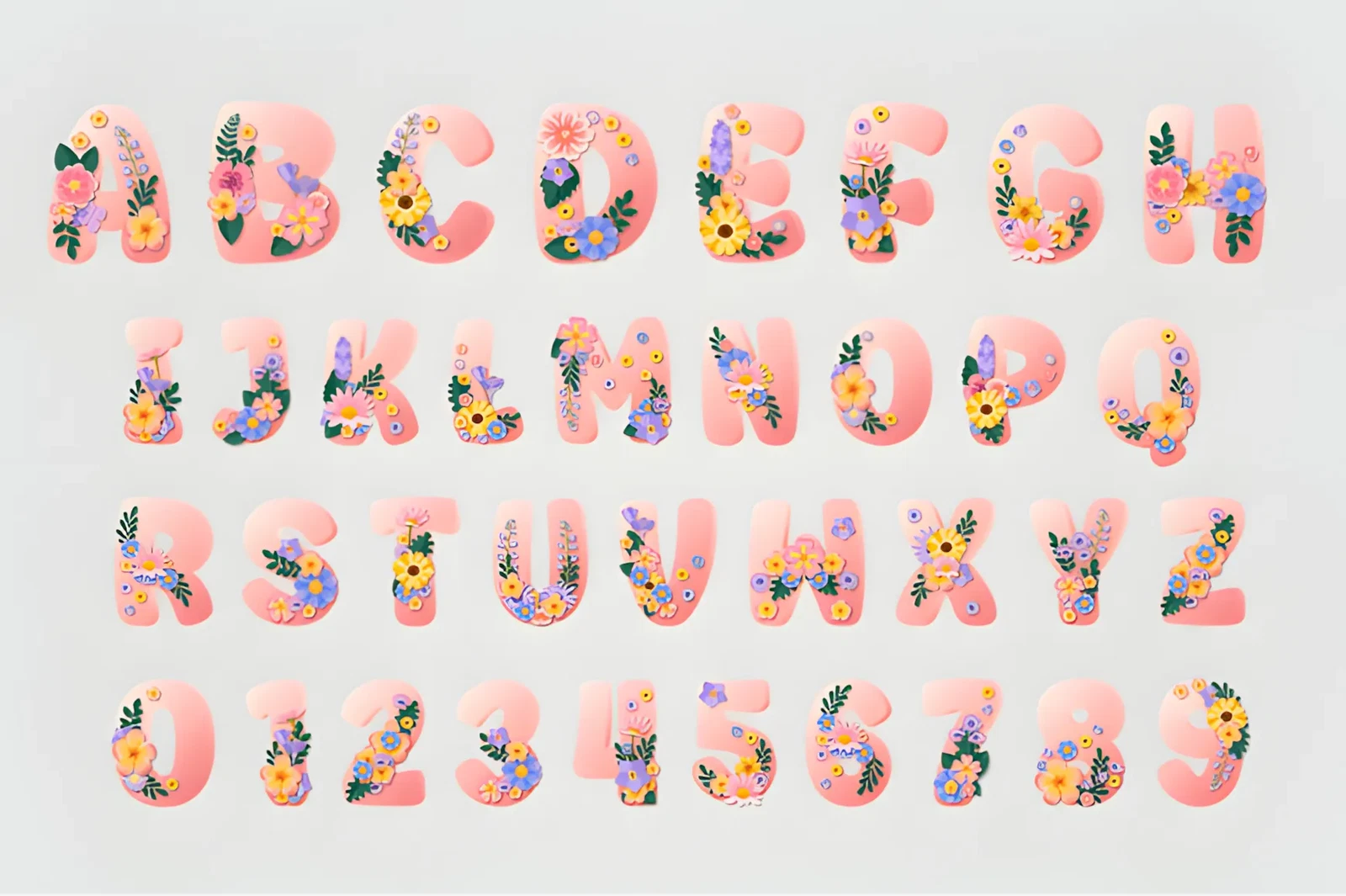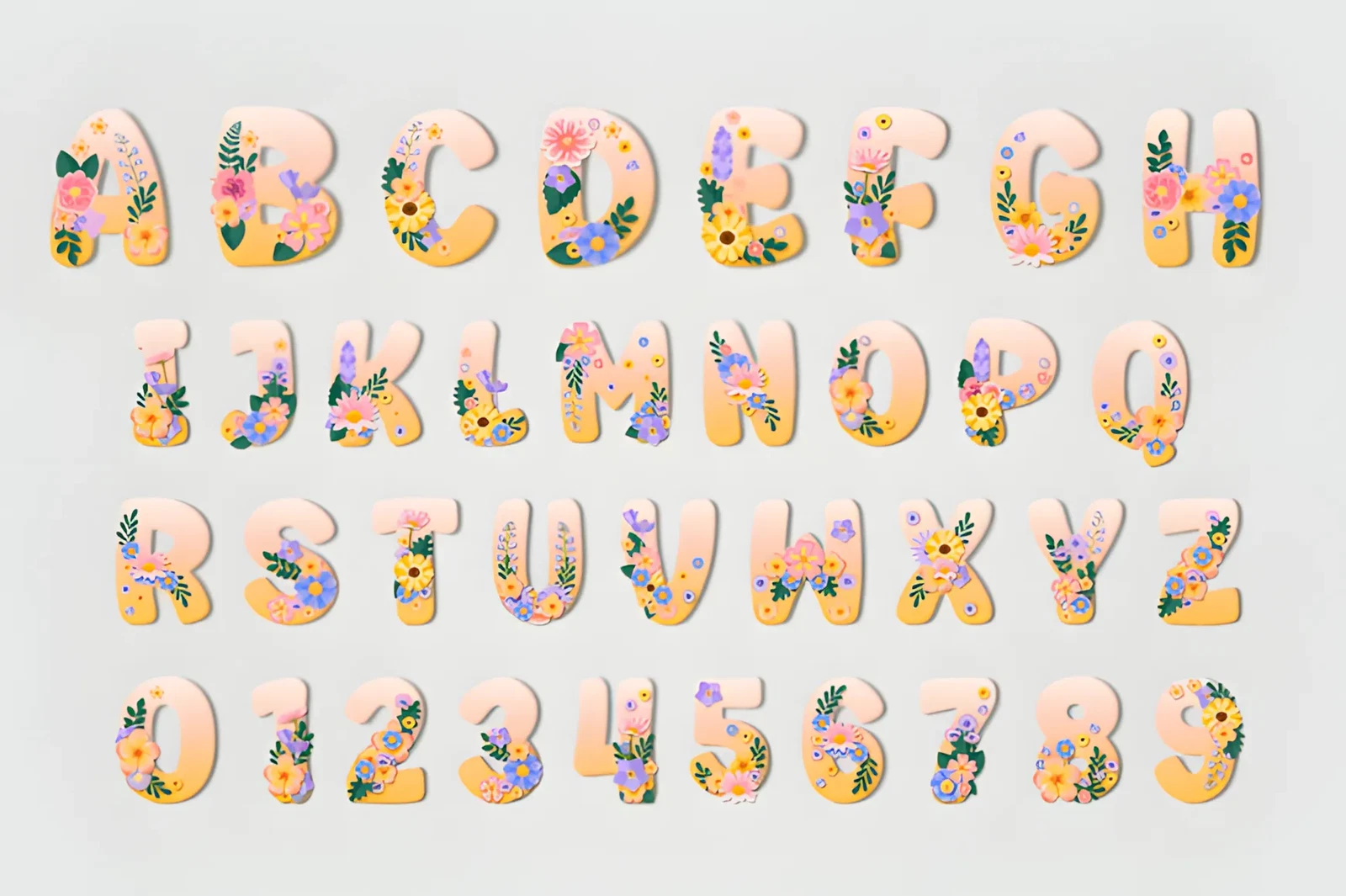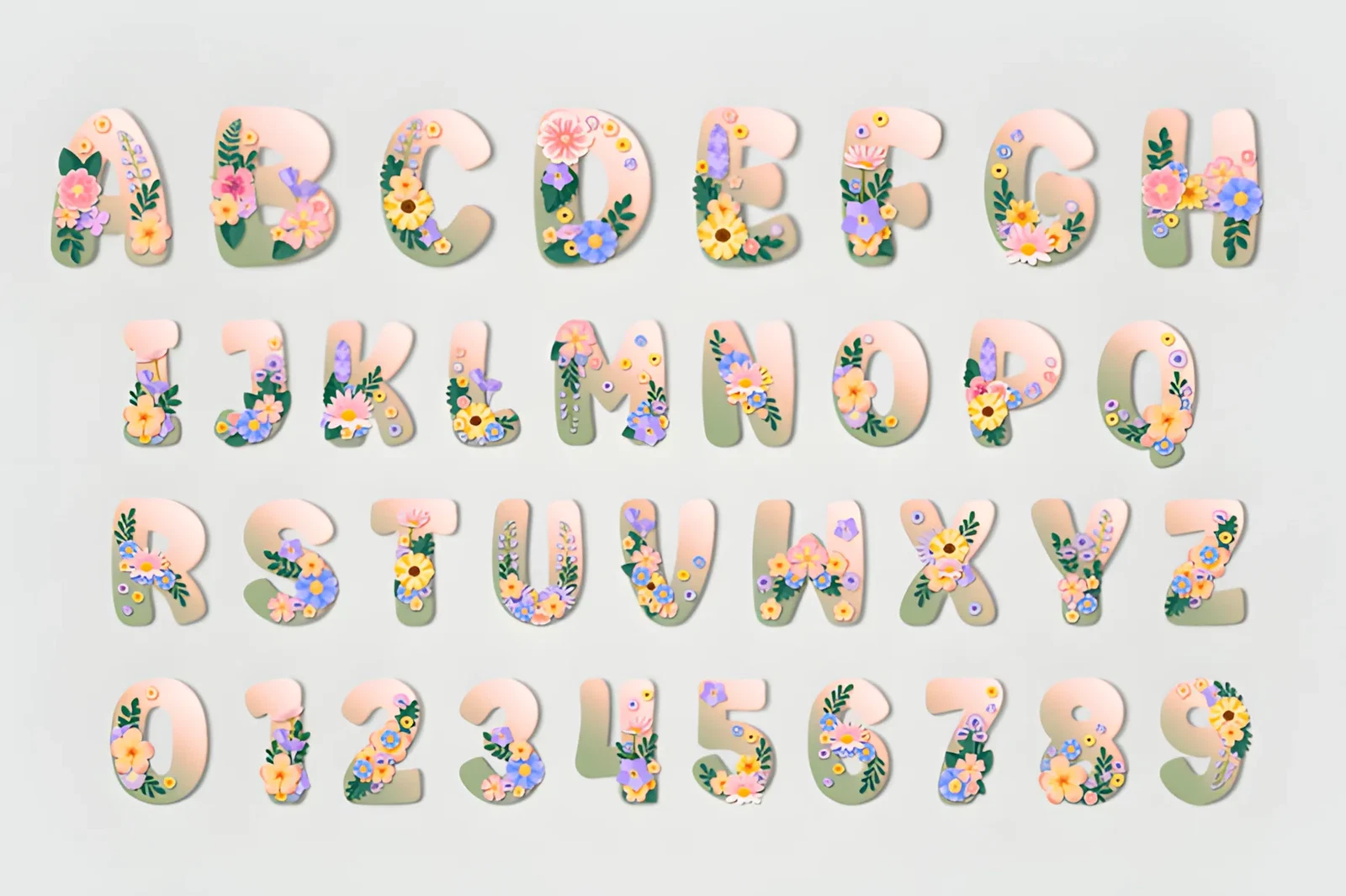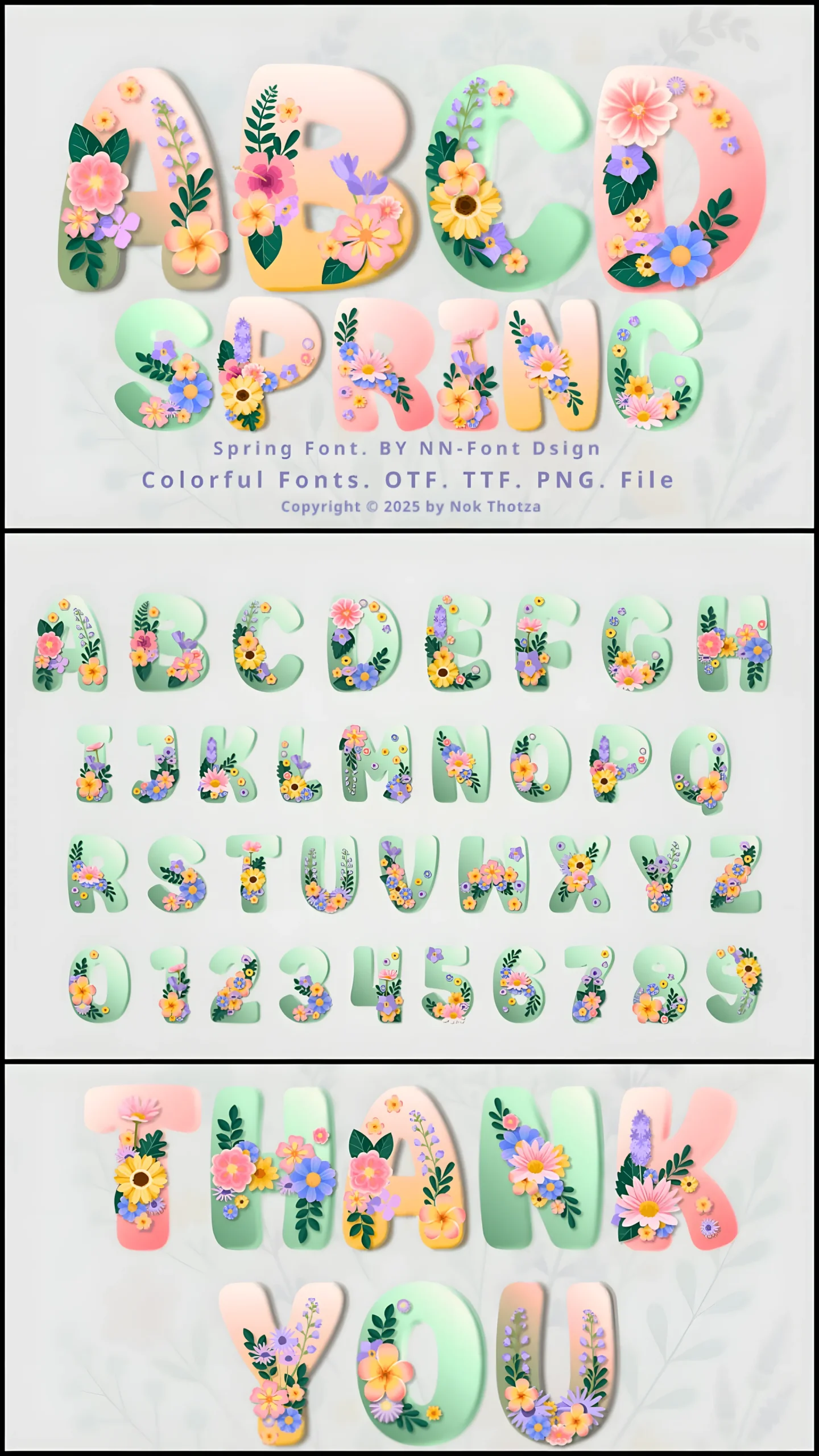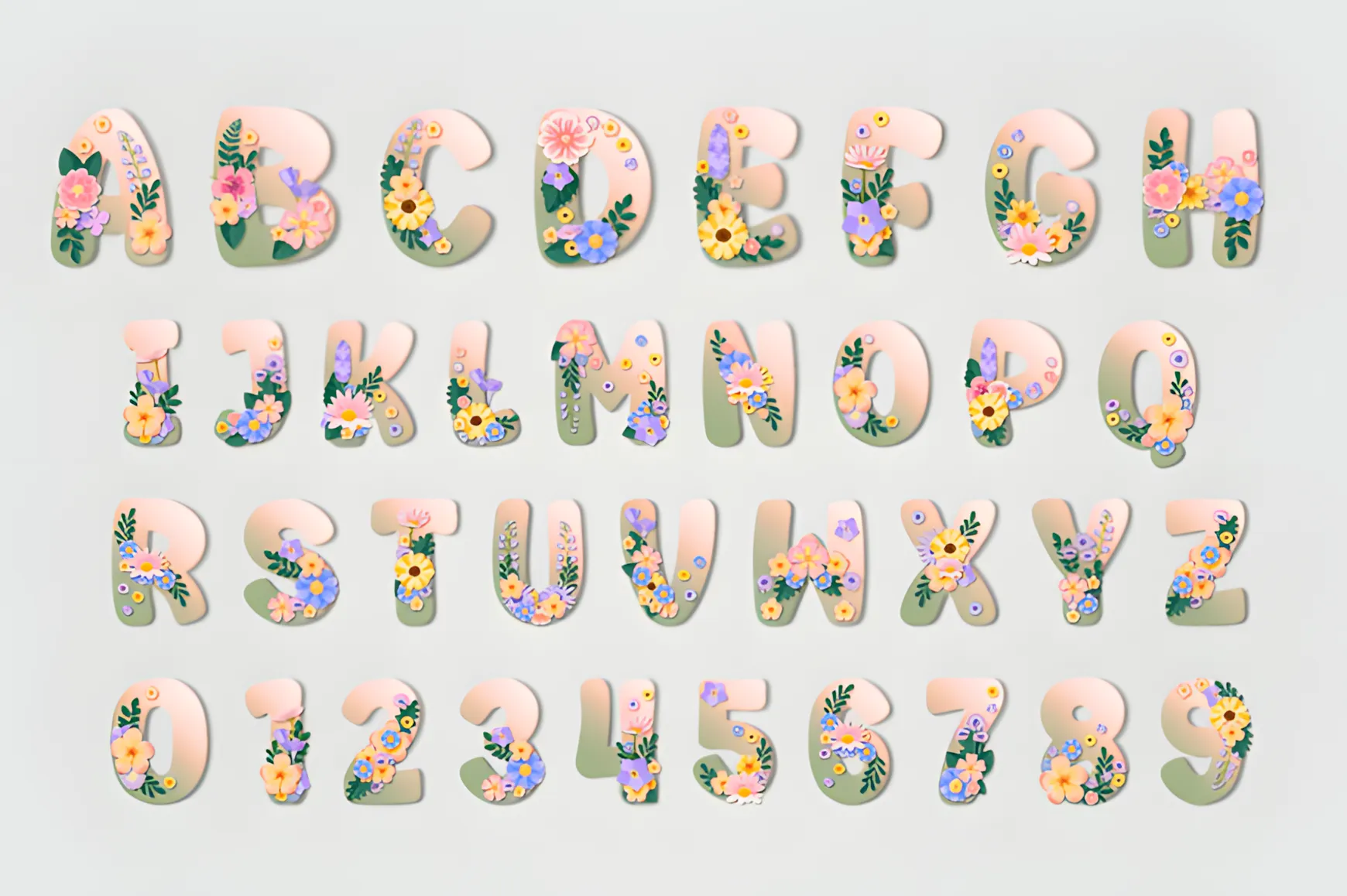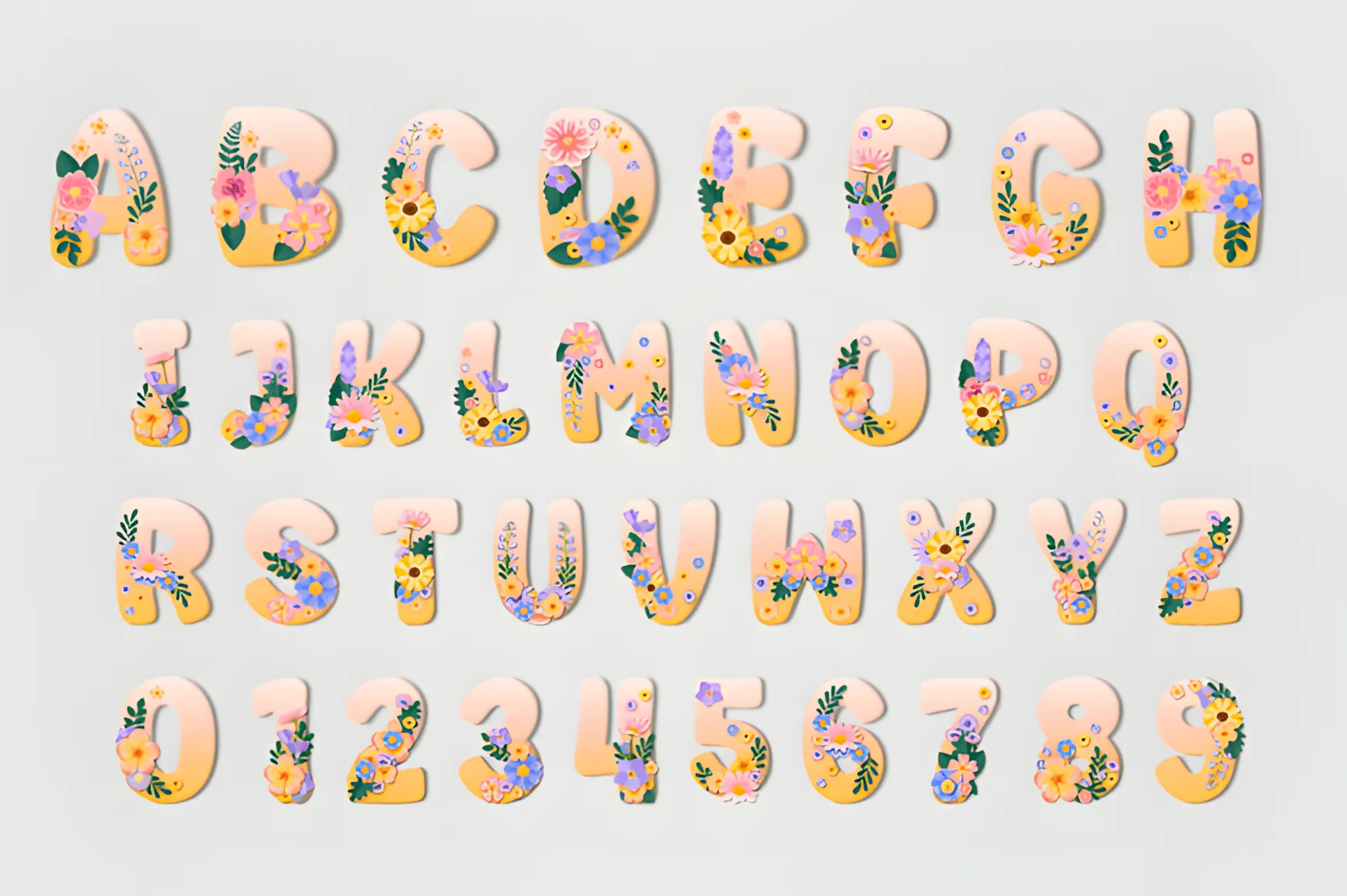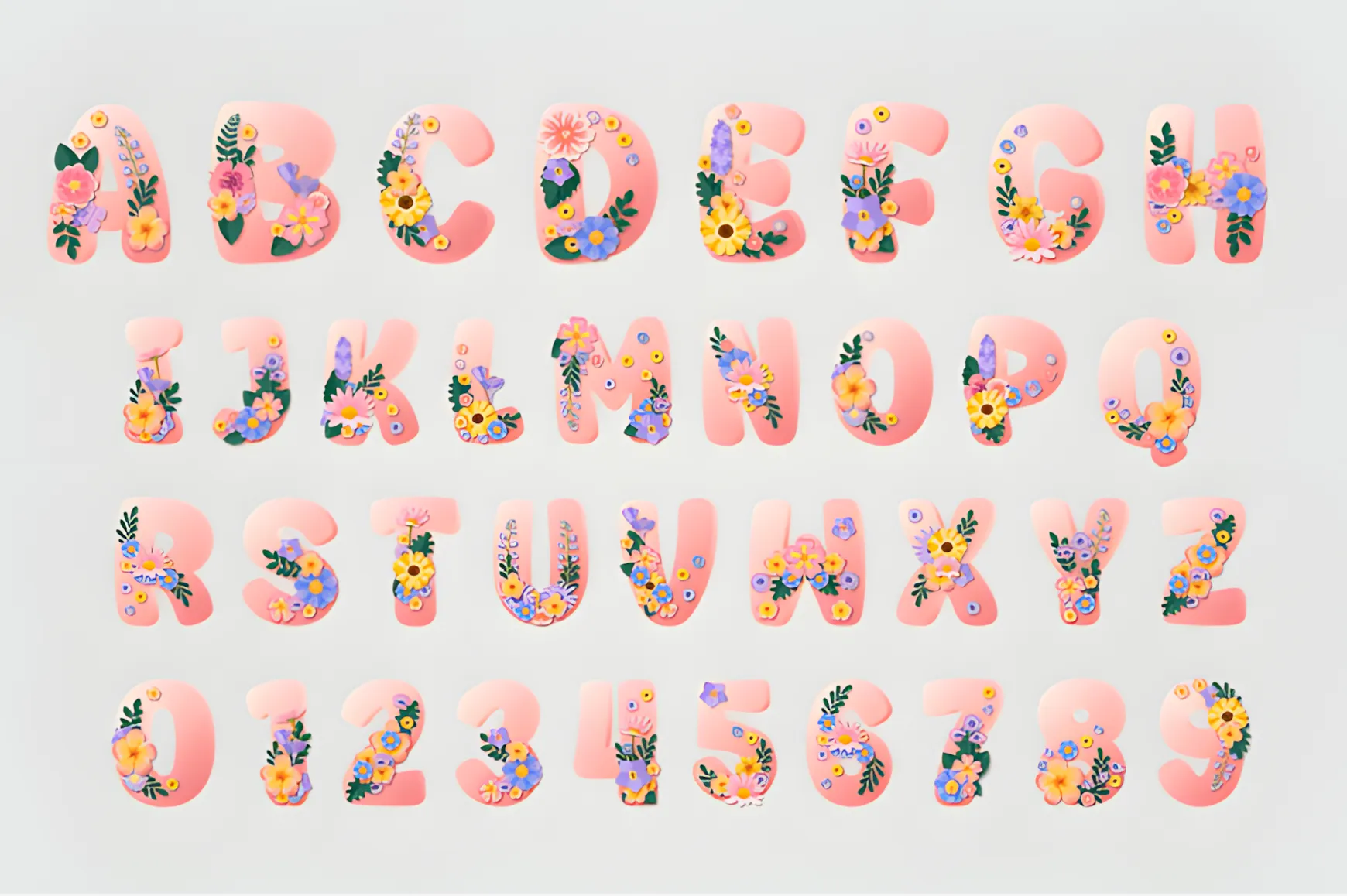
Some fonts are created simply to decorate text. Spring Font goes further — it turns words into visual compositions. From the first moment it appears in a layout, it feels clear that this typeface was designed to express season, mood, and emotion rather than just typography.
Each letter is filled with floral elements and greenery, giving the font a lively, natural character. Text created with Spring Font feels vibrant and expressive, as if the letters themselves are blooming on the page.
Visual Style and Overall Character
Spring Font immediately stands out as a colorful floral typeface. Every character is built from flowers and leaves, creating a rich botanical look that feels fresh and energetic. Instead of relying on outlines or simple fills, the font uses detailed decorative artwork inside each glyph.
The overall style feels elegant rather than overwhelming. Despite the amount of detail, the shapes of the letters remain recognizable. This balance allows the font to stay readable while still delivering strong visual impact.
Spring Font is clearly designed to be noticed. It works best when the typography itself is meant to be a focal point of the design.
What Makes Spring Font Unique
The defining feature of Spring Font is its use of built-in color. The floral artwork is part of the font itself, which means the colors appear automatically when typing. There is no need to manually color letters or add extra graphic elements.
This approach transforms text into decoration. Words become illustrations, which makes the font especially useful for creative and seasonal projects where visual expression matters more than minimalism.
Best Ways to Use Spring Font
Because of its rich detail, Spring Font works best as a display font. It is most effective in short text elements where each letter has enough space to be appreciated.
Invitations and Greeting Cards
Spring Font is especially well suited for invitations and greeting cards. Wedding invitations, spring celebrations, and personal announcements benefit from typography that feels decorative and emotional.
The floral letters add visual interest without the need for additional illustrations, making designs feel complete with minimal elements.
Posters and Seasonal Designs
For posters and seasonal promotions, Spring Font instantly communicates themes such as:
- spring
- nature
- renewal
- freshness
Event titles, headlines, and highlighted words become visually engaging and expressive, setting the mood before the message is even read.
Wedding and Elegant Projects
The floral style of Spring Font works well in elegant contexts. It fits naturally into wedding designs, romantic layouts, and refined invitations where a natural aesthetic is preferred over something playful or cartoon-like.
The balance between decoration and structure allows the font to feel graceful rather than excessive.
Creative and Artistic Work
Spring Font blends typography and illustration, which makes it a strong choice for:
- digital artwork
- branding visuals
- social media graphics
- creative posters
In these contexts, the font becomes part of the artwork itself, reducing the need for additional visual elements.
Readability and Design Balance
Spring Font is not intended for long paragraphs or body text. The floral details make it most suitable for titles, headlines, and short phrases.
Spacing plays an important role when working with this font. Giving the letters enough room helps maintain clarity and allows the decorative elements to stand out. Pairing Spring Font with a clean, simple font for body text creates balance and keeps layouts readable.
Used thoughtfully, the font remains clear while delivering strong visual character.
Spring Font transforms text into a visual experience. By combining typography with floral illustration, it brings nature, color, and emotion directly into design.
For creatives looking to capture the feeling of spring through typography, this font offers a clear and expressive solution. Used with intention, it adds freshness, elegance, and personality to any project built around renewal and beauty.